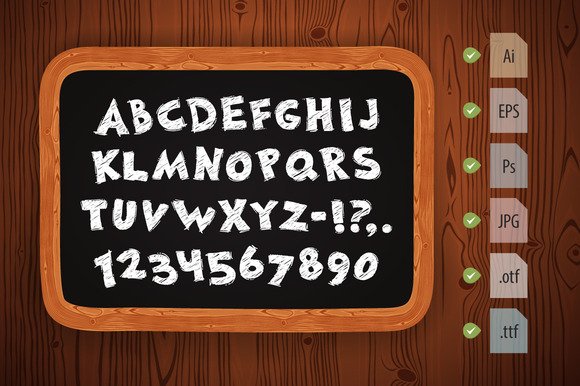
The Joy of Hand-Drawn Typography: Bringing Chalkboard Charm to Your Designs
Remember the thrill of creating with chalk on a blackboard as a kid? The feel of the smooth, cool surface beneath your fingers, the way the chalk danced across it, leaving behind a trail of colorful characters and words? It’s a moment that sparks creativity and imagination, and one that can be recaptured with the Hand Drawn Chalked Font.
This beautiful, hand-drawn font is more than just a pretty face – it’s a versatile tool that can be used for a wide range of design projects, from headings and logos to posters, book covers, and invitations. Its unique, chalkboard-inspired aesthetic adds a touch of whimsy and charm to any design, making it a valuable asset for designers looking to add some personality to their work.
Hand Drawn Chalked Font Key Features
- Unique Characteristics: Hand-drawn, chalkboard-inspired design with subtle texture and imperfections, giving it a personal and unique touch.
- Font Styles: Includes various font styles, such as Regular, Italic, Bold, and Bold Italic, allowing for versatility in design applications.
Hand Drawn Chalked Font Review
Overall, I think the Hand Drawn Chalked Font is a great addition to any design project that needs a touch of whimsy and charm. ✨ The font’s unique, hand-drawn style is perfect for creating a playful and casual atmosphere. It’s great for titles, headings, and even body text when you want to add some personality to your design.
Here are some of the things that work well with this font:
- ✨ Unique, hand-drawn style that adds character to designs
- ✨ Perfect for creating a playful and casual atmosphere
- ✨ Works well for titles, headings, and body text
- ⚠️ May not be suitable for formal or professional designs
- ⚠️ Can be difficult to read in small sizes or at a distance
Overall, I would recommend the Hand Drawn Chalked Font for designers who want to add a touch of personality to their designs. While it may not be suitable for all projects, it’s a great choice for creating a playful and casual atmosphere. Just be sure to use it judiciously and consider the limitations mentioned above.
Tips for Getting the Most Out of the Hand Drawn Chalked Font
Use the font in conjunction with other creative elements, such as illustrations and graphics, to create a cohesive and eye-catching design.
Experiment with different font sizes and styles to create visual interest and hierarchy in your design.
Use the font to add a touch of whimsy and personality to your design.
Common Use Cases for the Hand Drawn Chalked Font
The Hand Drawn Chalked Font is ideal for use in creative and playful designs, such as:
Children’s books and educational materials
Alternatives to Hand Drawn Chalked Font
Pacifico is a beautiful, elegant script font that is reminiscent of handwritten text. It’s perfect for creating a warm and inviting feel in your designs, especially for branding and packaging materials. Unlike Hand Drawn Chalked Font, Pacifico has a more refined and sophisticated look, making it suitable for high-end or luxury brands.
Great Vibes is a modern script font that has a relaxed, casual feel. It’s great for creating a friendly and approachable tone in your designs, especially for social media, advertising, and event promotions. Compared to Hand Drawn Chalked Font, Great Vibes has a more dynamic and energetic feel, making it perfect for youth-oriented or creative brands.
Carolyna Pro is a elegant script font that has a classic, sophisticated feel. It’s perfect for creating a professional and luxurious look in your designs, especially for corporate branding, wedding invitations, and high-end marketing materials. Unlike Hand Drawn Chalked Font, Carolyna Pro has a more refined and polished look, making it suitable for formal or upscale brands.
What is the recommended font size for using the Hand Drawn Chalked Font?
The Hand Drawn Chalked Font is designed to be used at various font sizes, but it’s recommended to use it at sizes between 12pt and 48pt. Using the font at smaller sizes may result in pixelation, while larger sizes may lose the delicate, hand-drawn feel of the font.